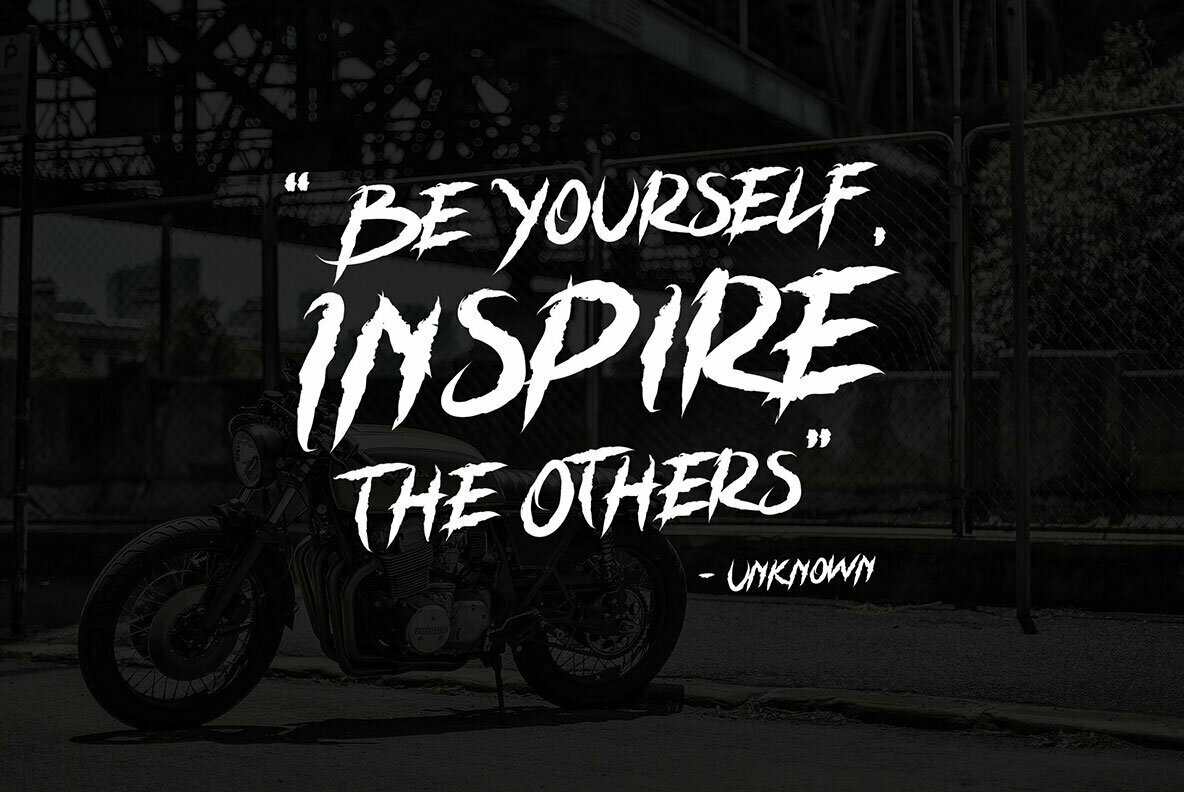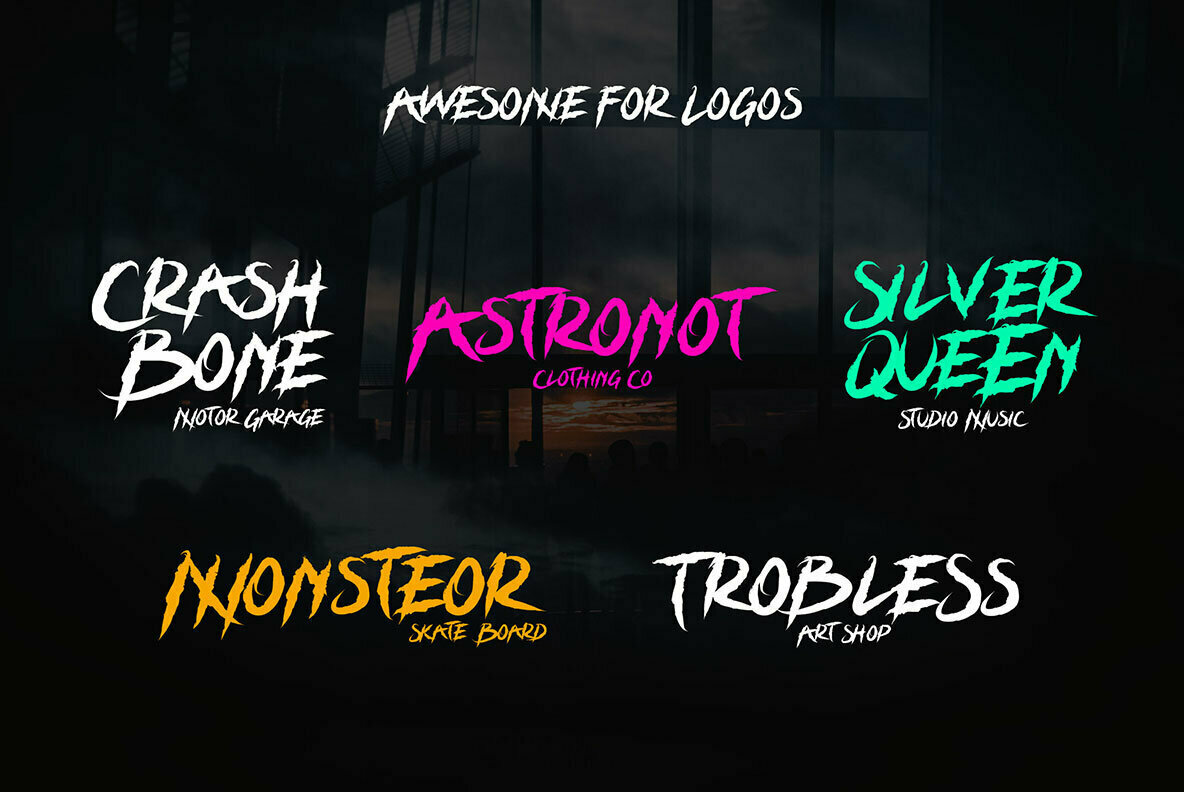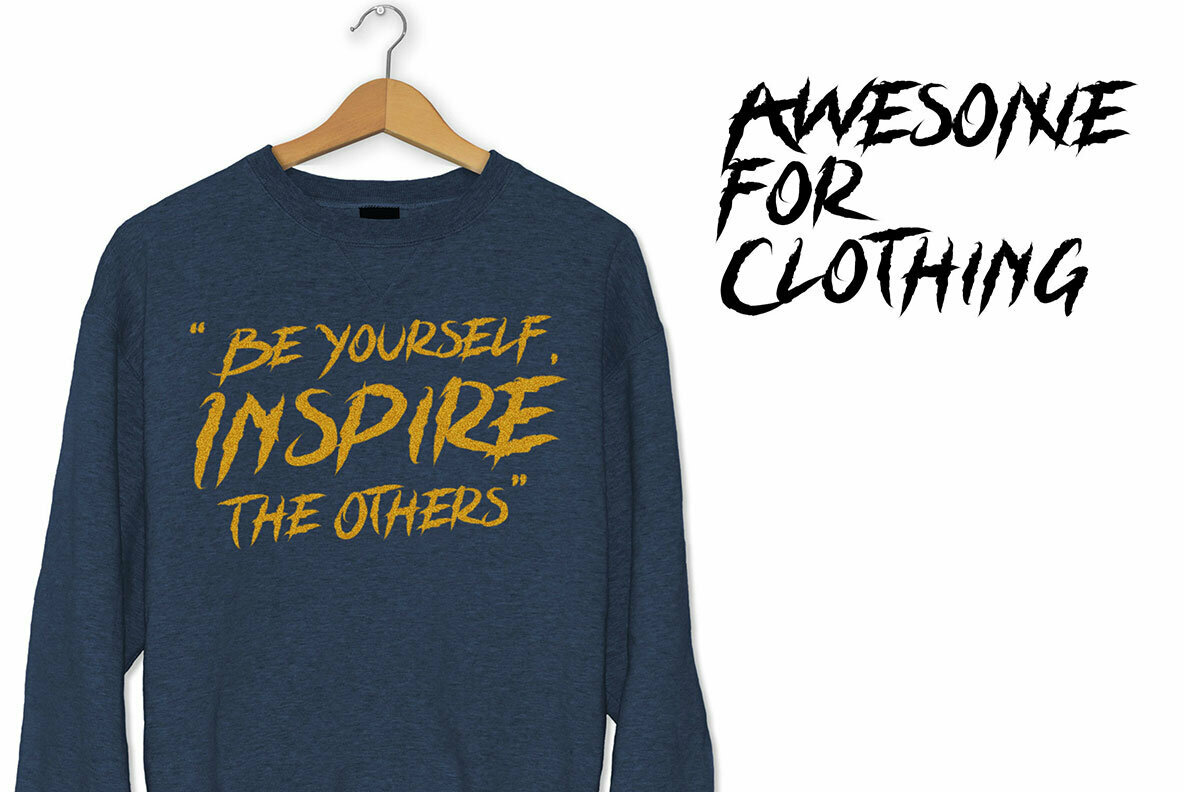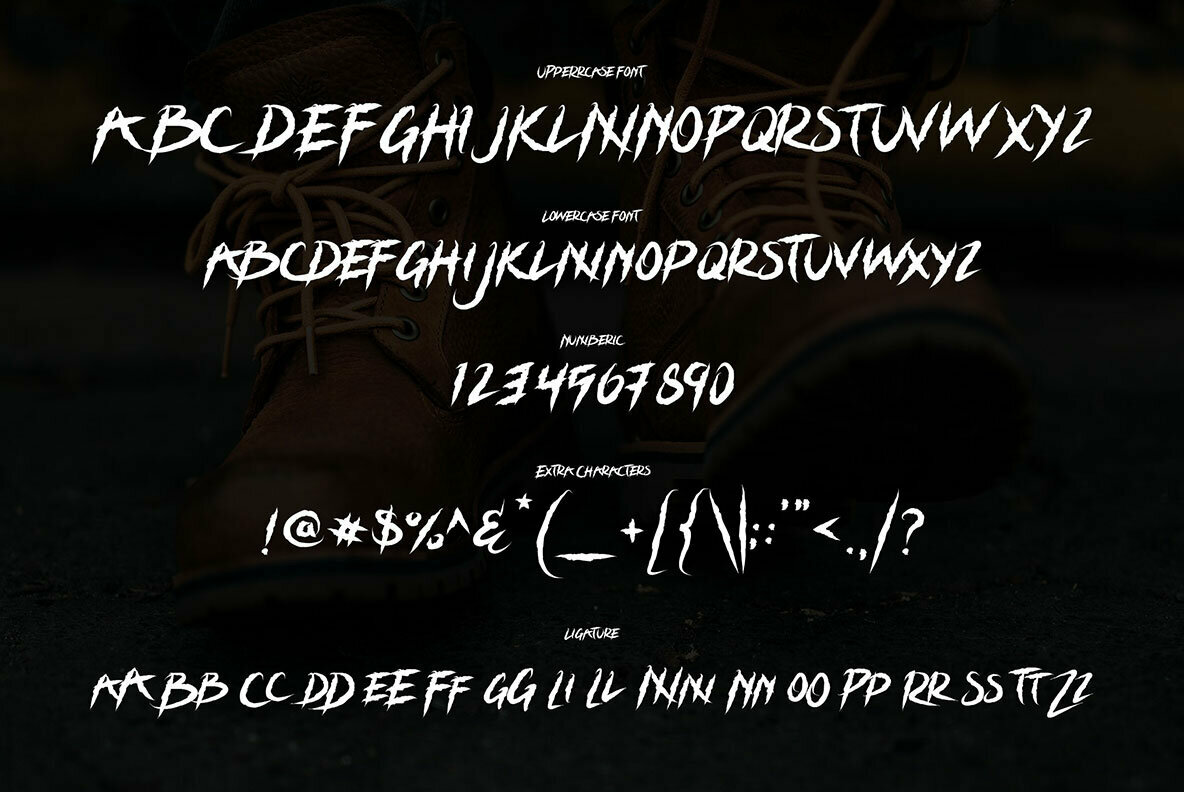
Grizzly Attack Font
Grizzly Attack
Grizzly Attack emerges as a captivating blend of hand-drawn charm and urban appeal, crafted with an eye for readability and style. This brush font radiates a cool sophistication, making it an excellent addition to any design repertoire. Whether you're signing off on professional work or crafting visually striking content, Grizzly Attack is an apt choice. Its versatility spans a wide array of projects, encompassing logos, business cards, and branding materials. Its aesthetic also shines in creative projects such as wedding invitations and fashion editorials.Grizzly Attack: Urban Brush Font With Stylish Versatility